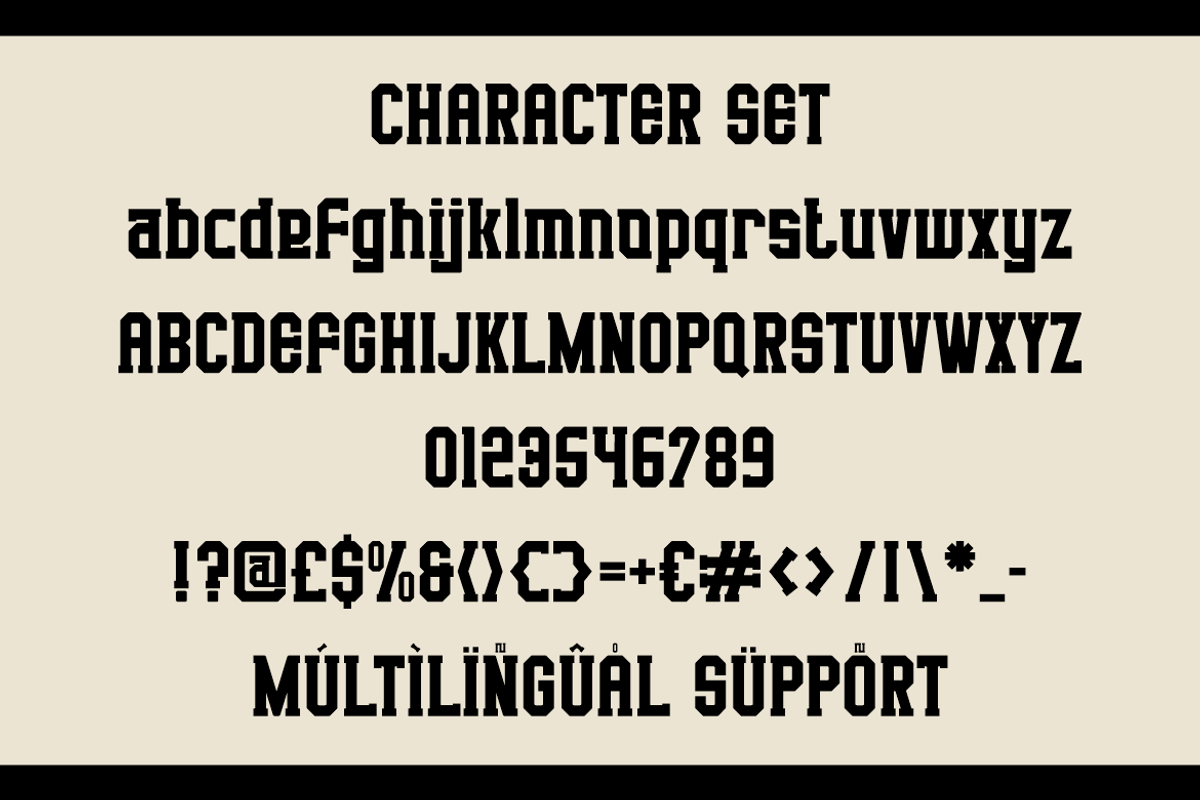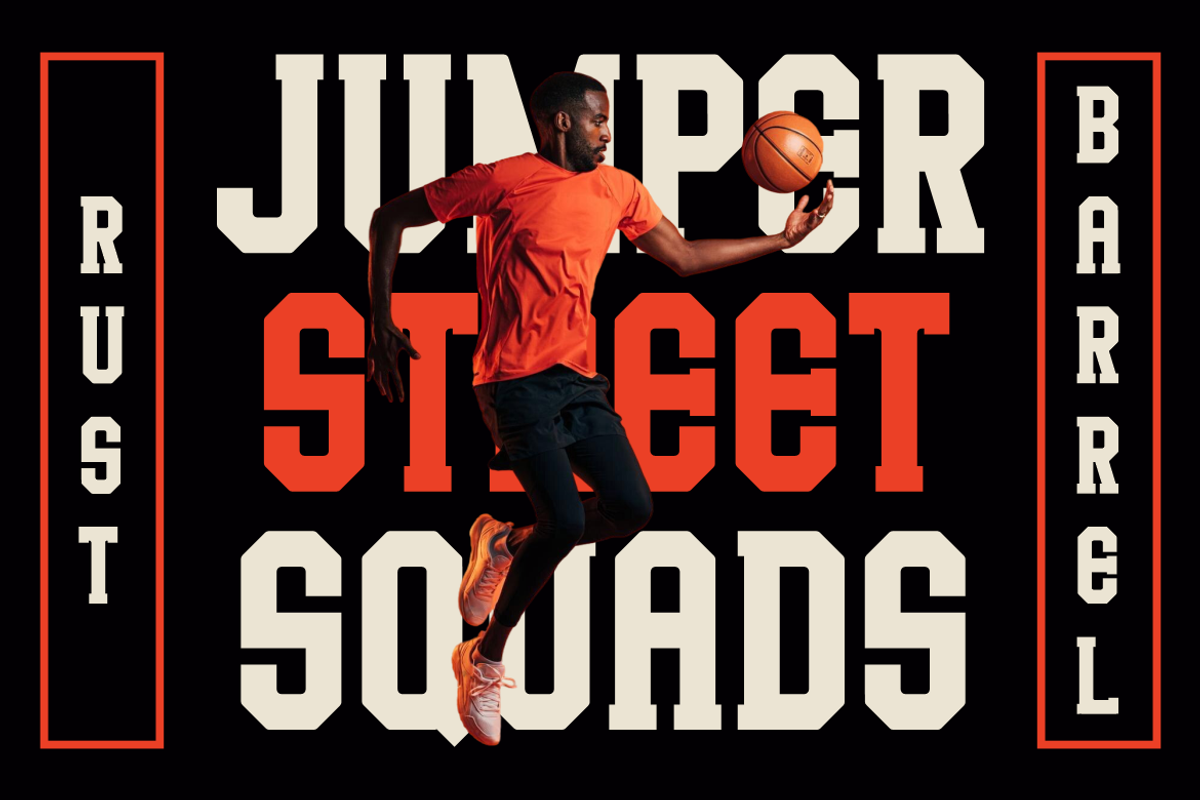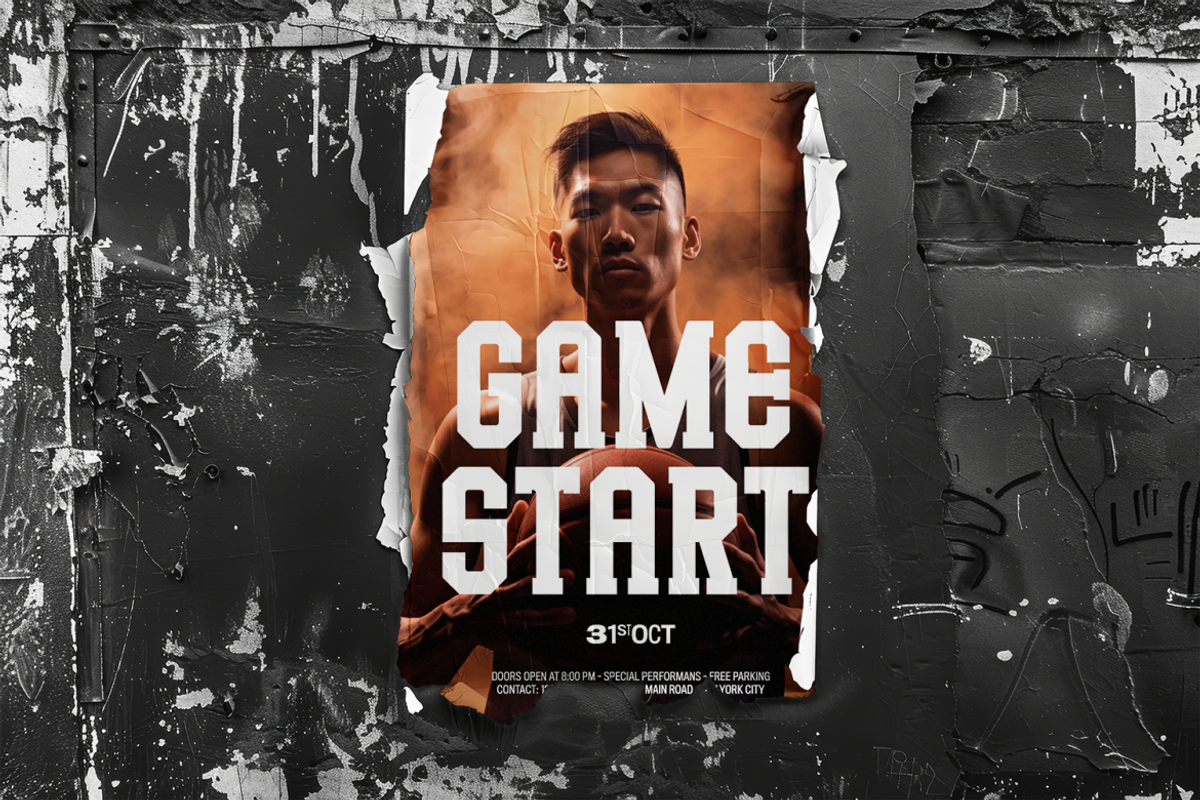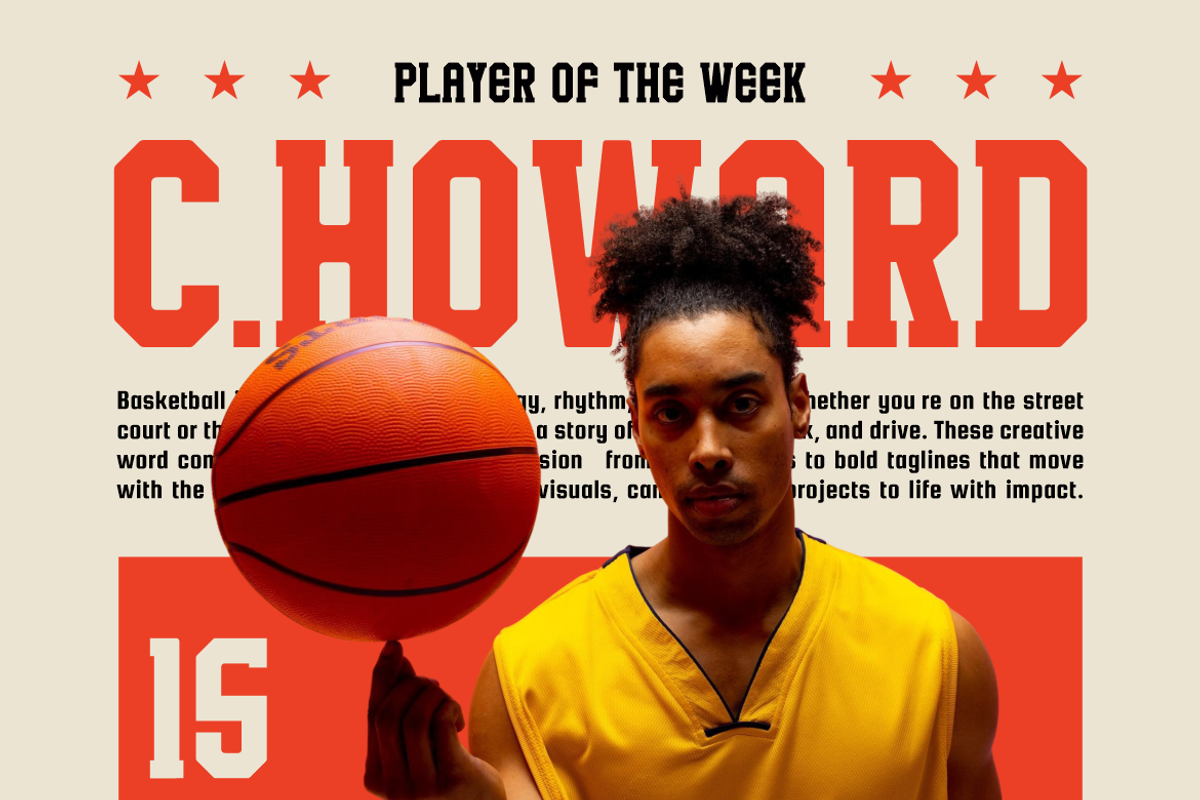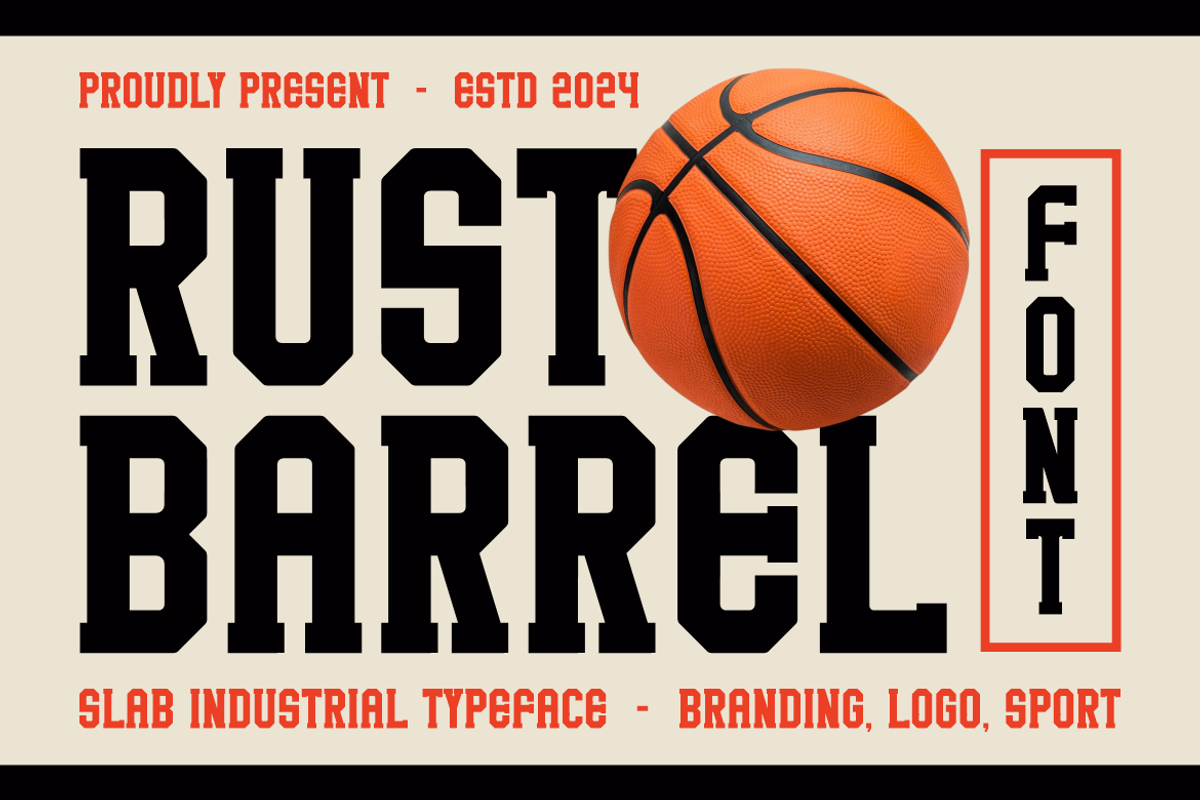
Rust Barrel Slab Industrial Typeface
Rust Barrel Sport Slab Typeface brings a commanding blend of industrial strength and athletic spirit to modern design. Each letter is built with a tall and heavy slab structure that gives every word solid presence and competitive confidence. Strong block shapes define the core style, while angled cuts and squared corners add an industrial edge. The strokes stay thick and consistent, giving the typeface a stable rhythm across long titles and short labels. A subtle geometric influence shapes the internal forms, creating clean spacing and strong visibility at any size. The style feels powerful, bold, and energetic, making it a perfect match for projects that need clear force and direct communication.
Rust Barrel Sport Slab Typeface is ideal for designers who want a typeface that carries authority without losing modern appeal. Its athletic personality suits sports branding, team identities, gym promotions, tournament posters, and competitive headlines. Its industrial roots also make it great for logos, clothing prints, packaging, magazine covers, and bold digital ads. The firm structure supports impactful titles for events, quotes, business campaigns, and film graphics. With strong readability and a dynamic tone, Rust Barrel Sport Slab Typeface pushes every layout to feel tougher, louder, and more driven. Use it to deliver sharp statements with real presence and consistent visual power.